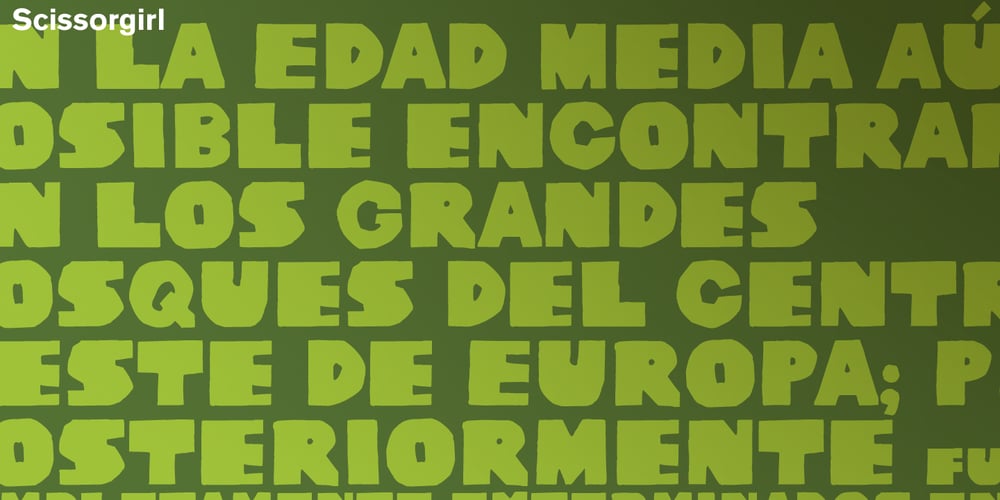
Scissorgirl
Scissorgirl Font Family was designed by Julia Friese, Clare Keogh and published by Type-Ø-Tones. Scissorgirl contains 1 styles and family package options. Scissorgirl by Julia Friese and Clare Keogh OpenType, 1 style Scsissorgirl is the crafty work of Ms. Julia Friese and Clare Keogh with the unselfish help of Josema Urós. Following Cortada path, this is a new fresh cut-out typeface, made not with vectors but real scsissor strokes on cardboard.